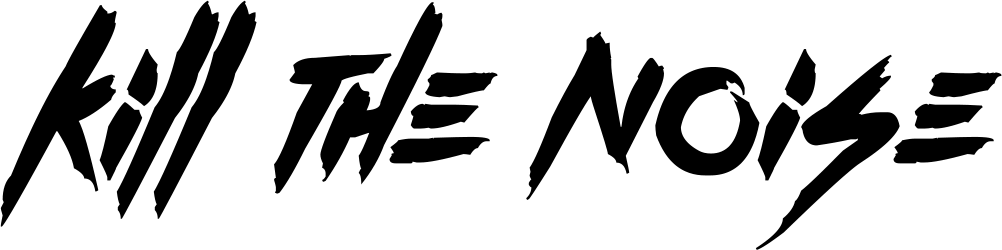
Kill The Noise Font
Bring excitement to your layout with Kill The Noise. This brush font with skewed characters can be utilized for movies, game posters, books, etc. You can’t guess how amazing this 80s horror font appears until you apply i…
Bring excitement to your layout with Kill The Noise. This brush font with skewed characters can be utilized for movies, game posters, books, etc. You can’t guess how amazing this 80s horror font appears until you apply it, give it a shot now, and amaze anyone at a glance! Browse RB to get more cherry-picked resources.
Inspired by musician “Kill the Noise”.
*UPDATE 2014/06/06: This font now contains cloned lowercase, and additional numbers and punctuation for extra usability!